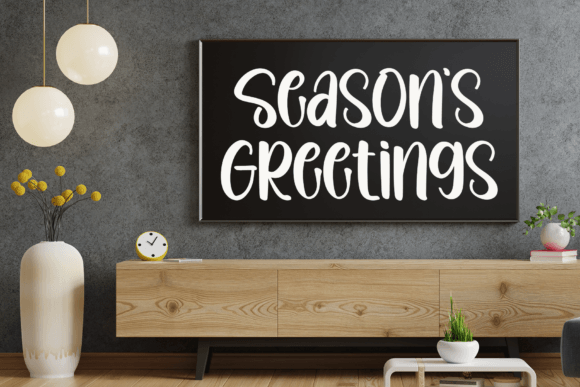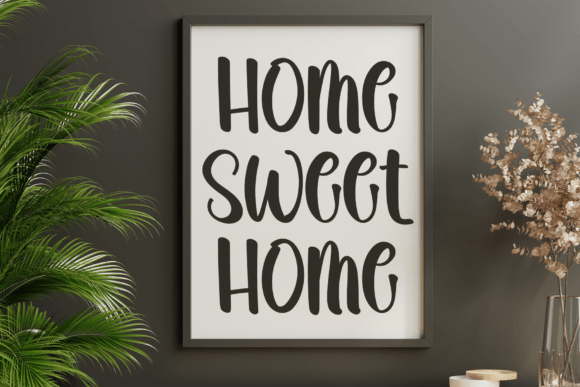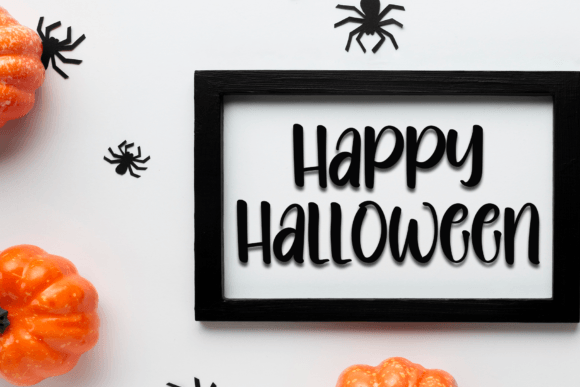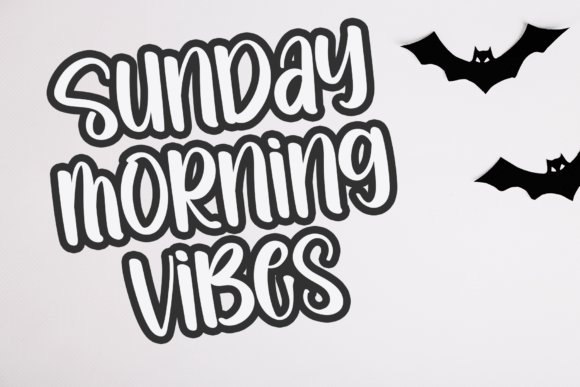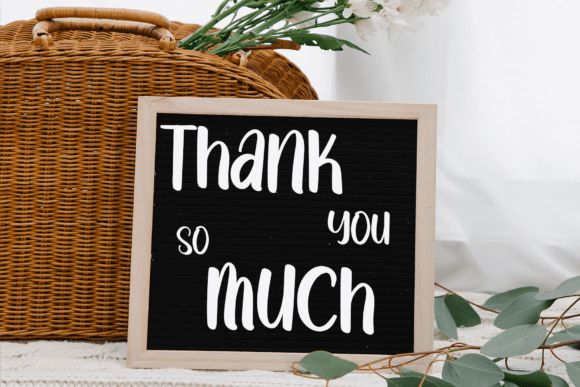
Groovy Retro Font: Add a Touch of Romance to Your Designs
Are you looking for a font that can add a dash of nostalgia and romance to your designs? Look no further than the Groovy Retro Font! This enchanting display font is perfect for a wide range of applications, from greeting cards to headlines, and is sure to make your next project stand out.
What is Groovy Retro Font?
Groovy Retro Font is a versatile and stylish font that is inspired by the classic designs of the past. With its unique blend of vintage and modern elements, this font is perfect for designers and crafters who want to add a touch of nostalgia to their work. Whether you’re creating a greeting card, a poster, or a social media graphic, Groovy Retro Font is sure to make your design pop.
Key Features of Groovy Retro Font
- Enchanting Display Font: Groovy Retro Font is a display font that is designed to grab attention and make a statement. Its unique and stylish design makes it perfect for headlines, titles, and other display text.
- Versatile: This font is incredibly versatile and can be used for a wide range of applications, from greeting cards to posters, social media graphics, and more.
- Romantic Feel: Groovy Retro Font has a romantic and nostalgic feel that is sure to add a touch of warmth and personality to your designs.
- Easy to Read: Despite its unique design, Groovy Retro Font is easy to read and understand, making it perfect for use in a variety of contexts.
Uses for Groovy Retro Font
Groovy Retro Font is a versatile font that can be used for a wide range of applications, including:
- Greeting Cards: Add a touch of nostalgia and romance to your greeting cards with Groovy Retro Font.
- Posters and Flyers: Use Groovy Retro Font to create eye-catching posters and flyers that are sure to grab attention.
- Social Media Graphics: Add a touch of personality to your social media graphics with Groovy Retro Font.
- Headlines and Titles: Use Groovy Retro Font to create stylish and attention-grabbing headlines and titles.
- Logos and Branding: Groovy Retro Font can even be used to create unique and memorable logos and branding elements.
Tips for Using Groovy Retro Font
Here are a few tips for getting the most out of Groovy Retro Font:
- Use it sparingly: While Groovy Retro Font is a beautiful font, it can be overwhelming if used too much. Use it sparingly to add emphasis and create visual interest.
- Pair it with other fonts: Groovy Retro Font pairs well with a variety of other fonts, so don’t be afraid to experiment and find the perfect combination for your design.
- Experiment with colors: Groovy Retro Font looks great in a variety of colors, so don’t be afraid to experiment and find the perfect color scheme for your design.